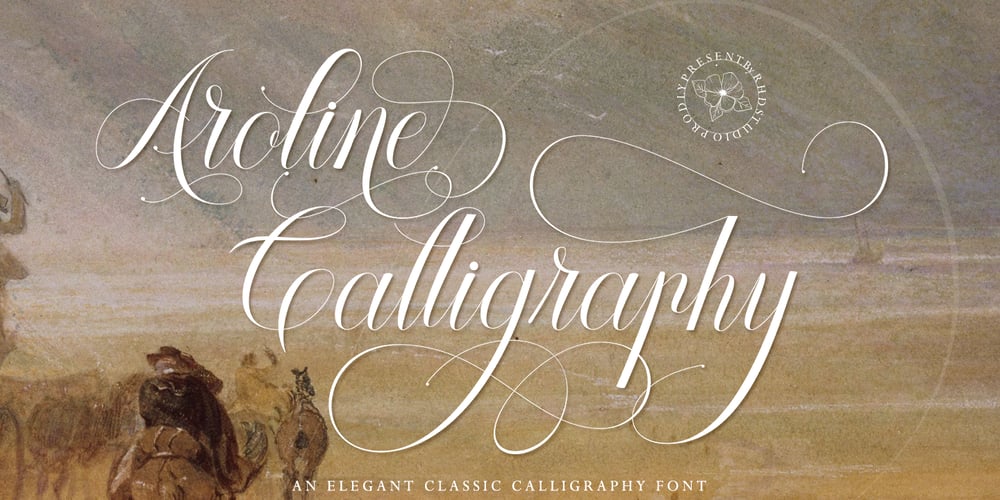
Aroline Calligraphy Font Family was designed by Rahmad Rizky and published by Rhd Studio. Aroline Calligraphy contains 1 styles and family package options. Aroline Calligraphy is a stylish script typeface that evokes elegance and sophistication. Its graceful curves and flowing strokes lend a sense of fluidity and charm to any design. Ideal for wedding invitations, branding, and upscale projects seeking a touch of refined beauty and timeless appeal.